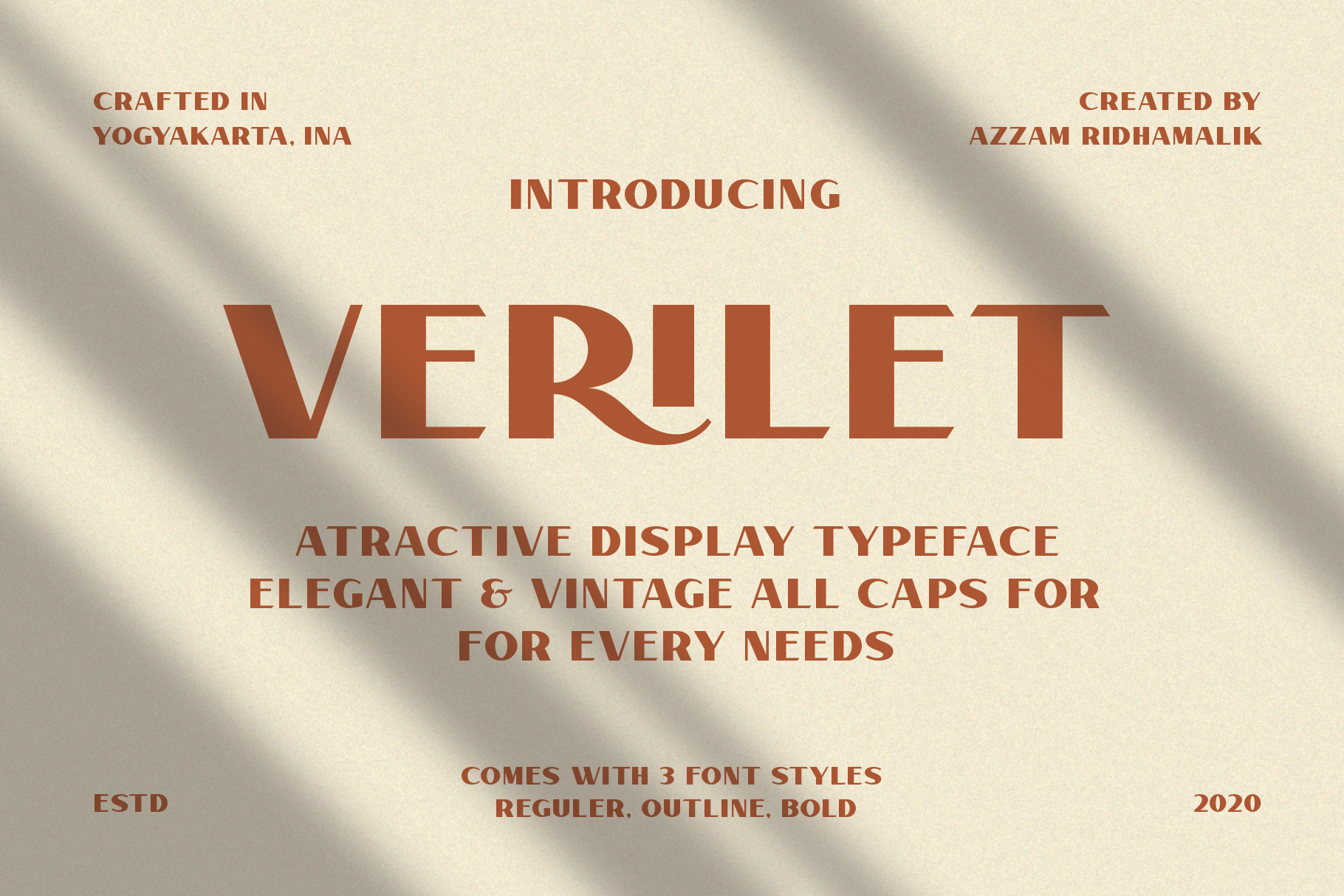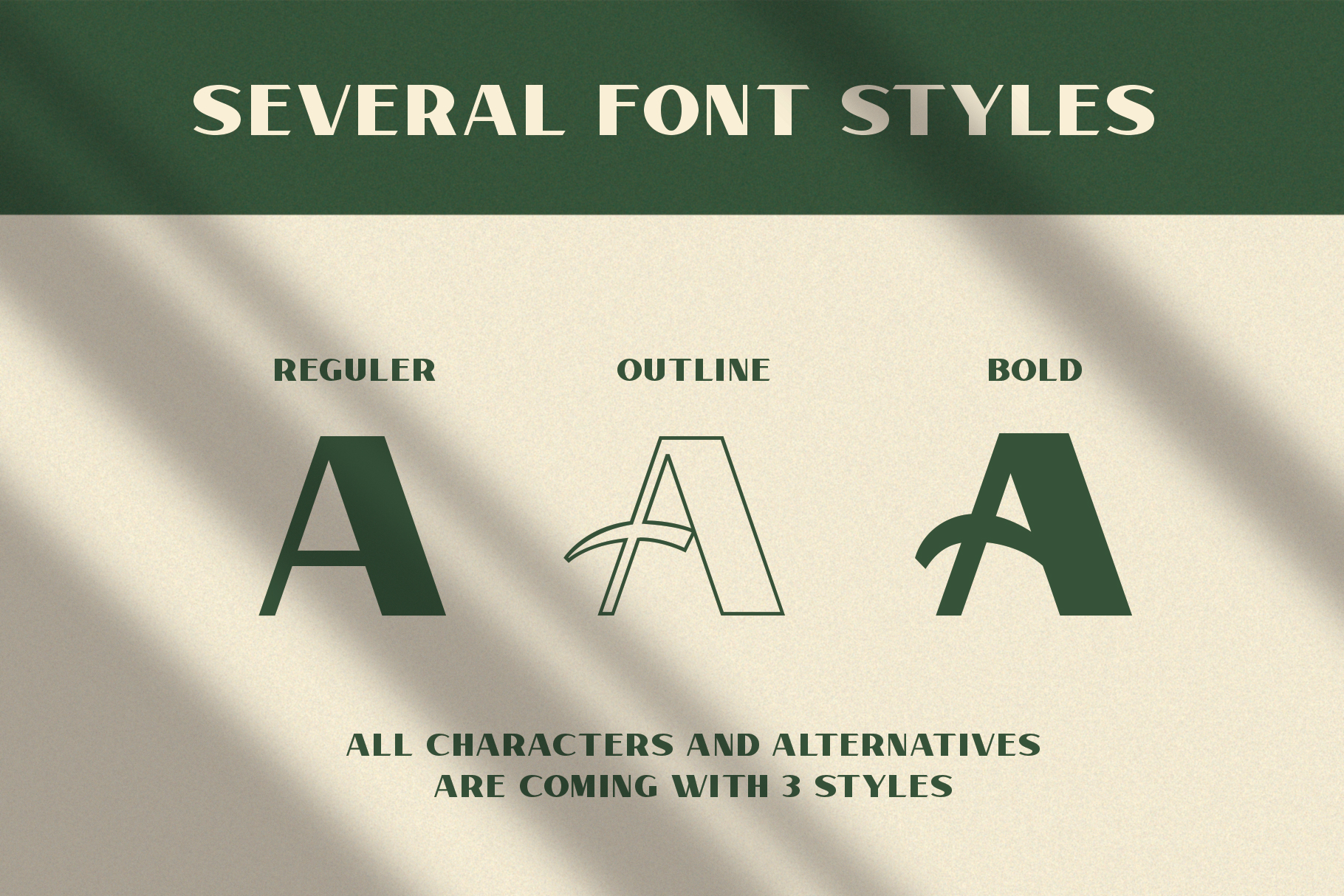
Verilet is elegant and vintage display typeface that looks stunning in just about every context. Very suitable as to make a design choice such as logos, branding, magazines, headlines, websites, packaging, wedding cards and more creative project! All-caps characters, with over 400 glyphs VERILET’s also has a lot of alternative characters. It looks really cool when elegant meet vintage to any piece.
FEATURES : UPPERCASE&LOWERCASE STANDARD LIGATURES, DISCRETIONARY LIGATURES, REQUIRED LIGATURES NUMERALS & PUNCTUATION MULTILINGUAL CHARACTERS PUA ENCODED